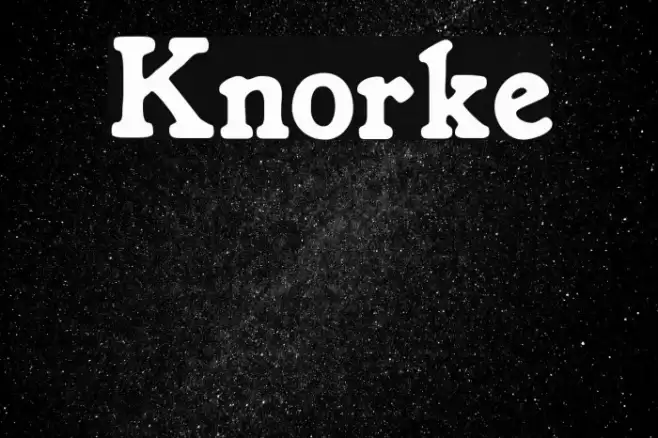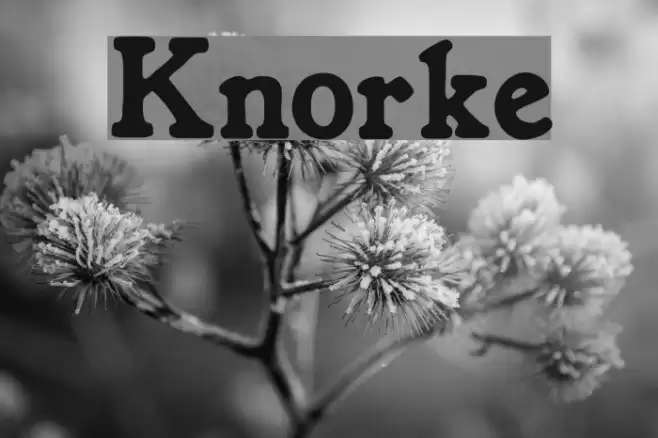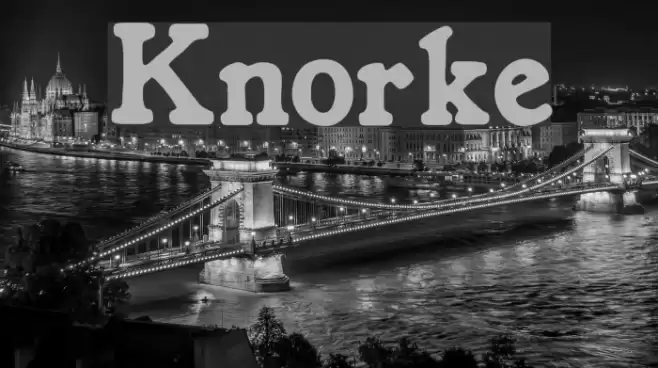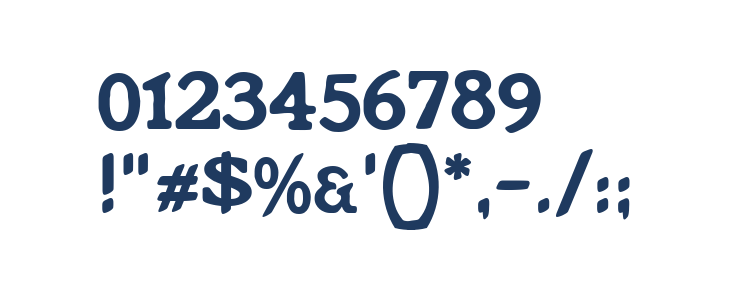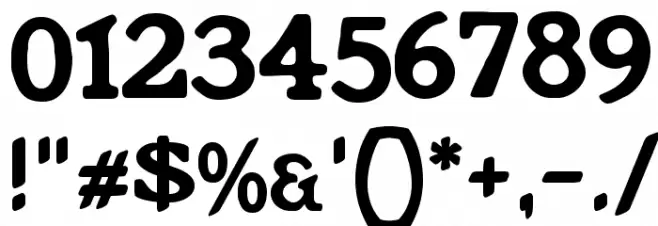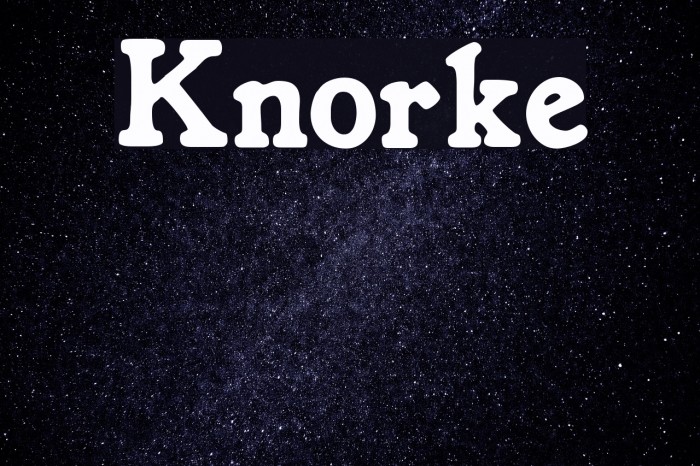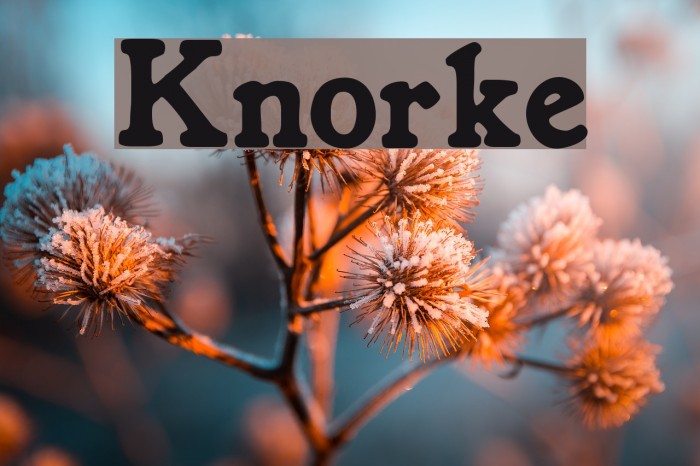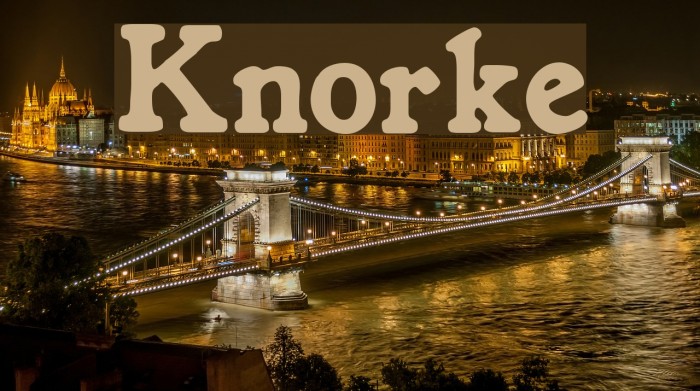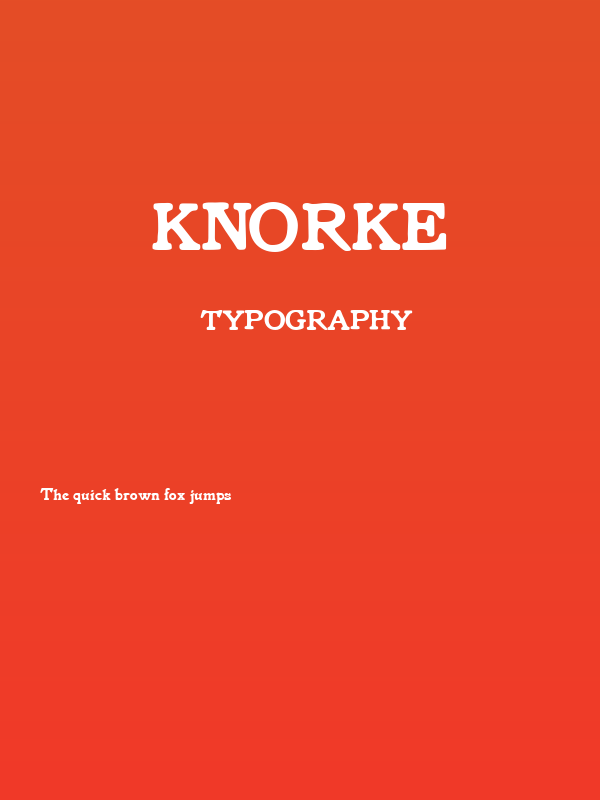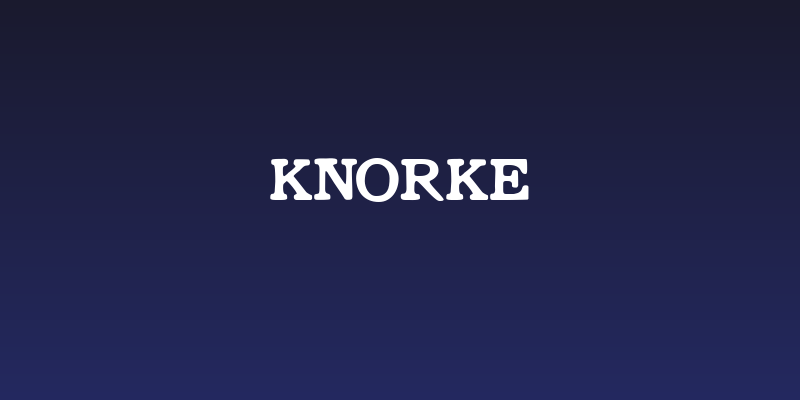
Knorke Font
Knorke Description
This font features a bold and playful style with a strong presence. The characters are rounded with thick strokes, giving it a friendly and approachable appearance. The uppercase letters are uniform in height, while the lowercase letters maintain a consistent baseline with slight variations in ascenders and descenders. The numerals are robust and align well with the overall design, ensuring readability. Special characters are distinct and maintain the font's playful aesthetic, making it suitable for a variety of creative applications.
A bold, playful font with rounded characters and thick strokes from Uncategorized fonts.
- Overall Style: Playful, Friendly